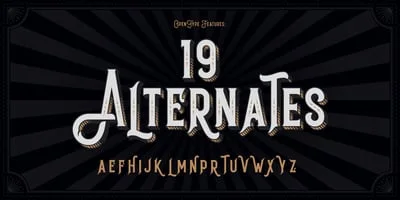
Black Queen Font
Black Queen Font presents designers with a regal typeface that embodies powerful elegance and commanding sophistication with majestic authority. However, for commercial use, you must purchase this font. You can download it for free for testing purposes only.
Black Queen Font excels in luxury design applications including high-end fashion branding, exclusive beauty product packaging, prestigious entertainment venues, luxury hotel communications, elite jewelry collections, sophisticated nightclub signage, premium cosmetics lines, upscale event materials, distinguished corporate identities, and empowering lifestyle campaigns. This commanding typeface brings royal sophistication to elite design projects.
What makes Black Queen Font truly exciting is its perfect fusion of feminine power with regal elegance that creates commanding presence while maintaining sophisticated grace. The font features bold, dramatic letterforms with queenly proportions and authoritative character that convey strength, luxury, and uncompromising quality. Its royal personality and powerful presence make it ideal for brands targeting sophisticated audiences who appreciate luxury experiences, premium quality, and the confident elegance of those who command respect through excellence and refined taste.
The Black Queen Font family typically includes multiple weights with potential decorative elements and royal flourishes that enhance its majestic character. These regal options provide designers with complete luxury styling while maintaining the font's distinctive queenly elegance and commanding presentation across various premium applications and elite contexts.
Whether you're developing luxury brand identities, creating high-end campaigns, or designing premium marketing materials, Black Queen Font delivers the royal authority and commanding sophistication that luxury projects require. Its exceptional majesty and powerful appeal make it invaluable for designers working with luxury brands, elite services, and premium organizations requiring typography that celebrates feminine power, royal elegance, and the commanding presence of those who refuse to settle for anything less than extraordinary quality and sophisticated excellence in every aspect of their refined lifestyle.